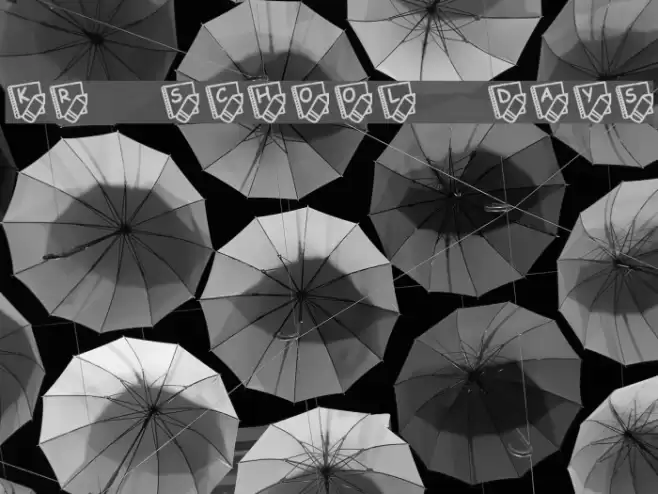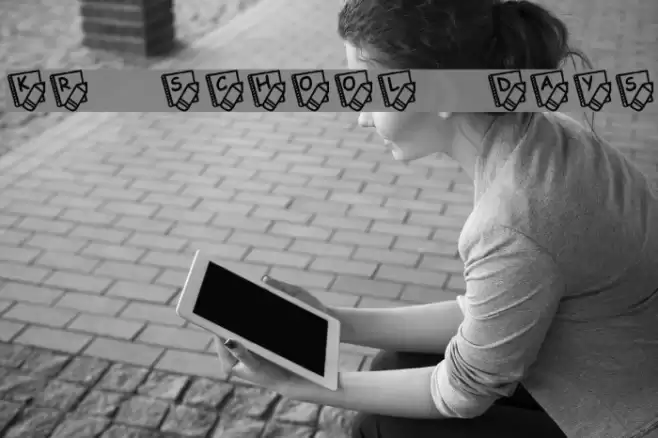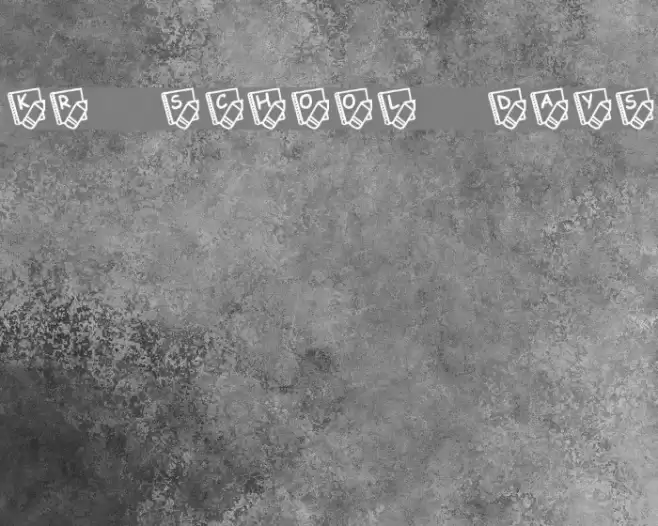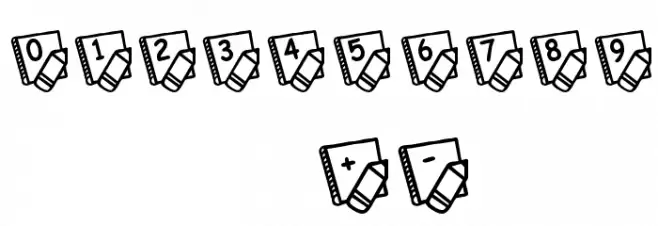
KR School Days Font
KR School Days Description
This playful and decorative font features each character enclosed within a stylized notebook and pencil design, evoking a school theme. The letters and numbers are bold and clear, making them easily readable despite the intricate border. The font's unique style is perfect for educational materials, children's projects, or any design that aims to capture a sense of fun and creativity. The consistent use of the notebook and pencil motif across all characters adds a cohesive and thematic element to the font, making it stand out in any application.
A playful, school-themed decorative font with characters enclosed in a notebook and pencil design from Uncategorized fonts.
- Proposed Projects: Ideal for educational materials, children's book covers, school event posters, and playful branding.